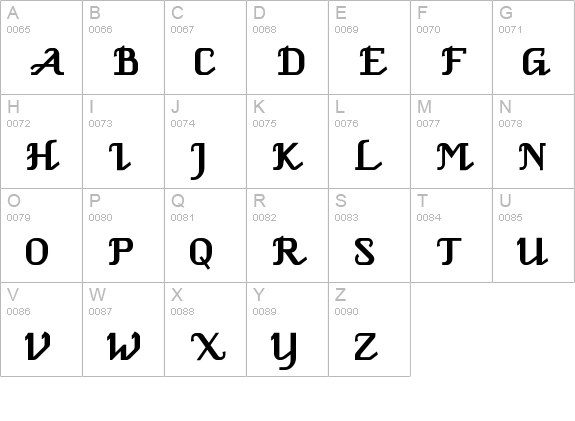
New Venice Medium is a balanced, medium-weight variant in the New typeface family \xE2\x80\x94 well suited to sub-headlines, navigation, and balanced editorial work.
New Venice Medium font is a modern and versatile typeface that exudes elegance and sophistication. With its sleek lines and balanced proportions, this font is perfect for a wide range of design projects, from branding to editorial. The medium weight strikes the perfect balance between being bold and refined, making it suitable for both headlines and body text. What makes New Venice Medium font even more appealing is that it is available for free download at FontsMarket.com. This means that you can easily incorporate this stunning typeface into your designs without any cost. Whether you are working on a print project or a digital campaign, New Venice Medium font will elevate your work with its timeless charm and contemporary flair. Download it today and add a touch of class to your design arsenal.